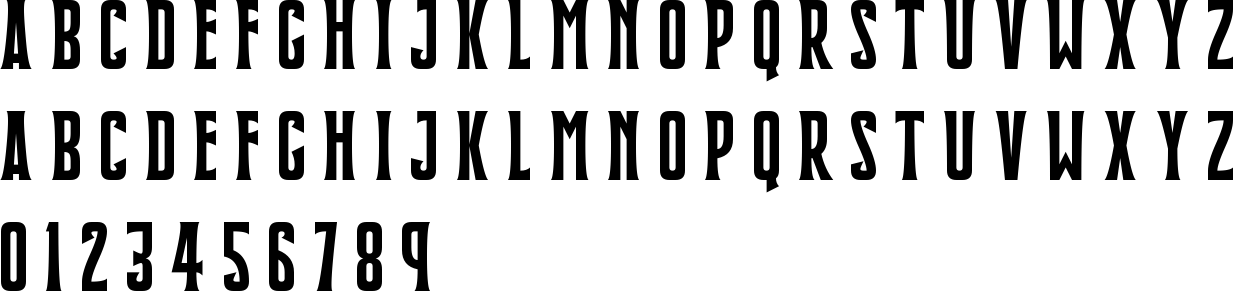
Blackmoon Quest
Blackmoon Quest Font
About the Blackmoon Quest Font
Blackmoon Quest is a bold display font. Masterfully designed to become a true favorite, this font has the potential to bring each of your creative ideas to the highest level!